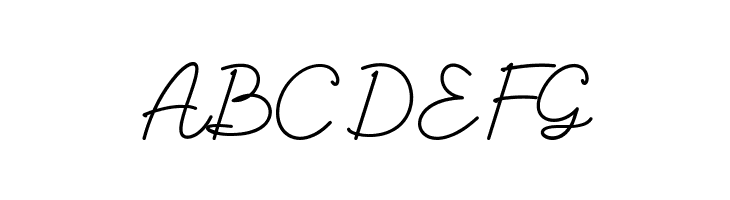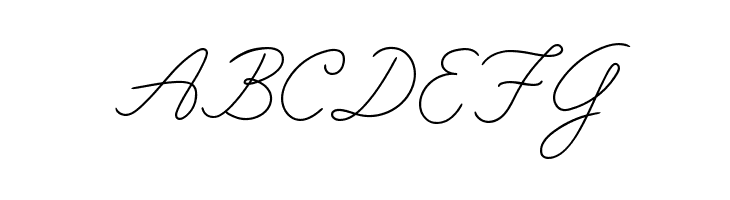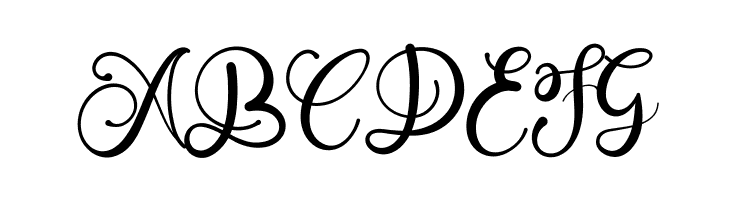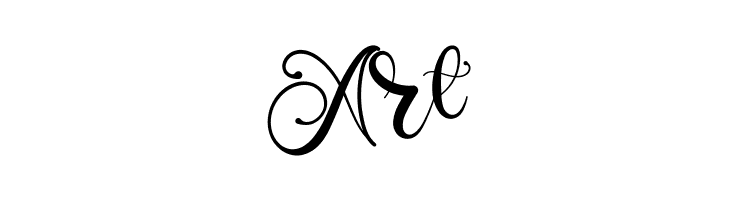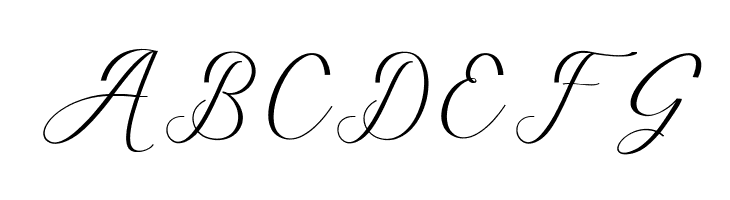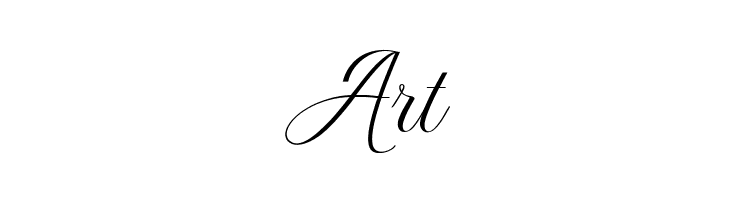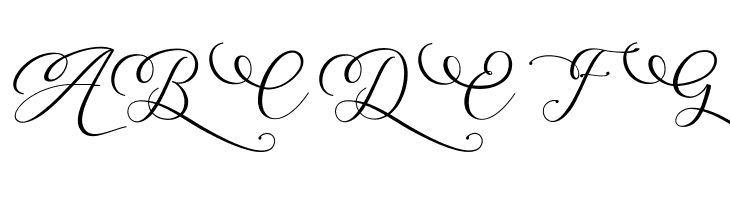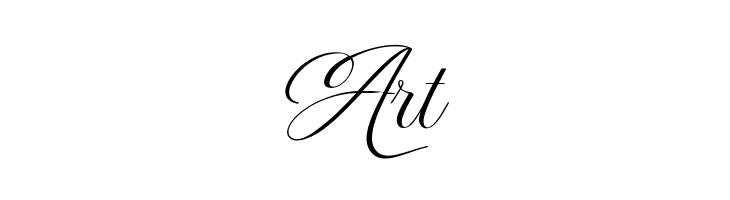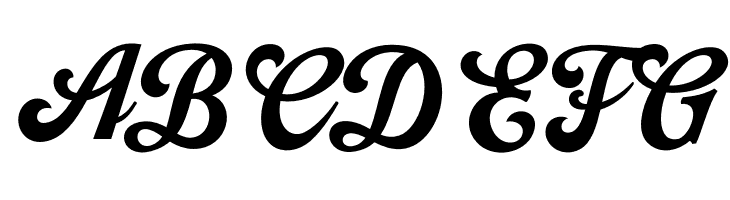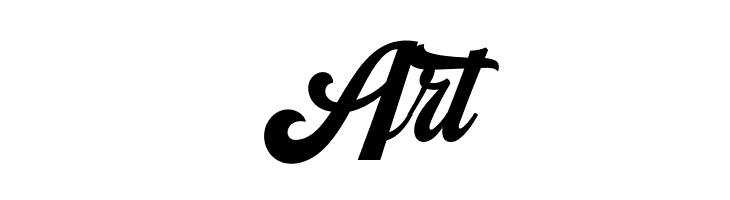
A playful, hand-drawn script font with a condensed and bold style.
A modern-vintage font with unique curves and angular details.
An elegant, decorative script font with intricate swashes and flowing letterforms.
An elegant script font with flowing cursive letters and high contrast strokes.
A graceful and fluid script font with interconnected letters and elegant curves.
A bold, flowing script font with elegant curves and high contrast.
An elegant script font with flowing, intricate loops and artistic flair.
A graceful script font with flowing, connected strokes and a handwritten style.
A flowing, cursive script font with elegant, interconnected characters.